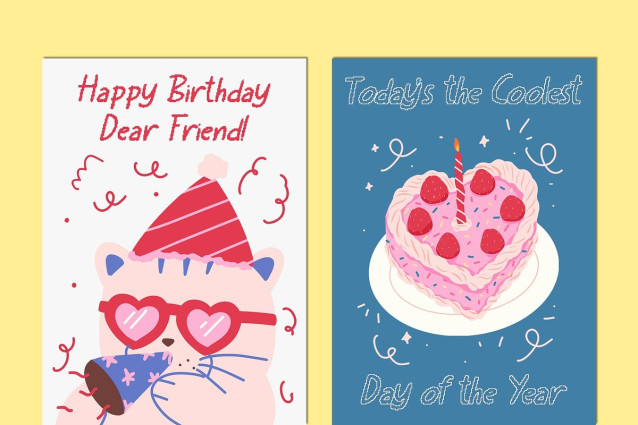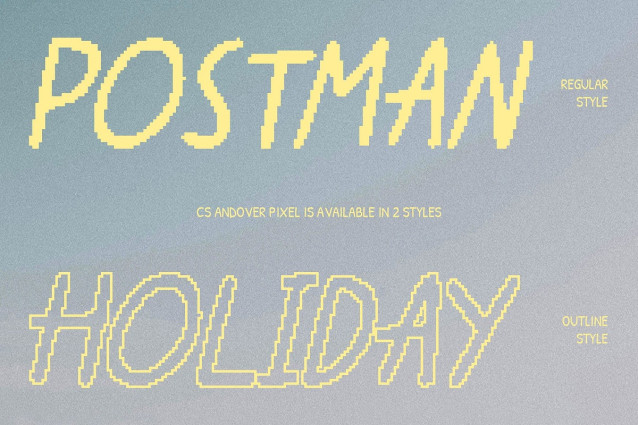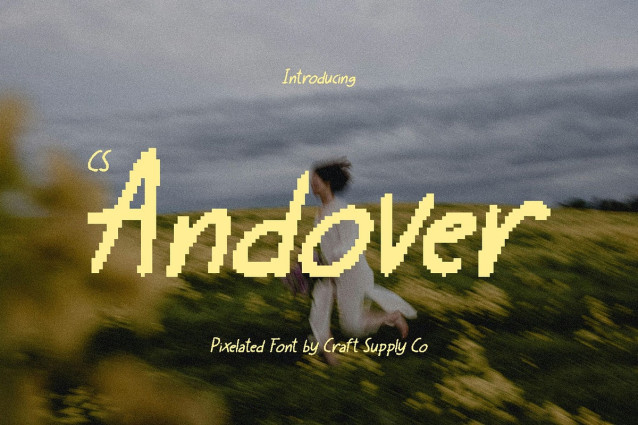
CS Andover Pixel Font
CS Andover Pixel Font – This is a handwritten-style pixel font that captures the spirit of casual creativity. Its friendly strokes and fresh personality make it approachable, while maintaining the visual impact needed for display work. Perfectly imperfect, the handwritten essence brings warmth and authenticity to any design.
Pixel Detailing for Unique Expression What sets this fonts apart is its pixel detail, adding a retro 8-bit-inspired texture that transforms ordinary text into something eye-catching. This detail bridges the gap between nostalgia and modern creativity, ensuring the font feels fresh yet rooted in playful history. The pixel structure makes the design stand out and delivers a quirky.
Fresh Aesthetic with Versatile Appeal Radiating charm and character, fits seamlessly into projects that call for energy and friendliness. Its casual style paired with pixel quirks works well for posters, fun editorial layouts, or digital content. It’s particularly powerful for branding that aims to be approachable while leaving a lasting impression.
Perfect for Creative Branding and Posters From lifestyle campaigns to children’s products and artistic projects, this font thrives in environments where creativity and individuality matter most. It is a versatile tool for designers who want a font that is fresh, playful, and infused with nostalgic digital texture. It brings text to life with a unique blend of personality.